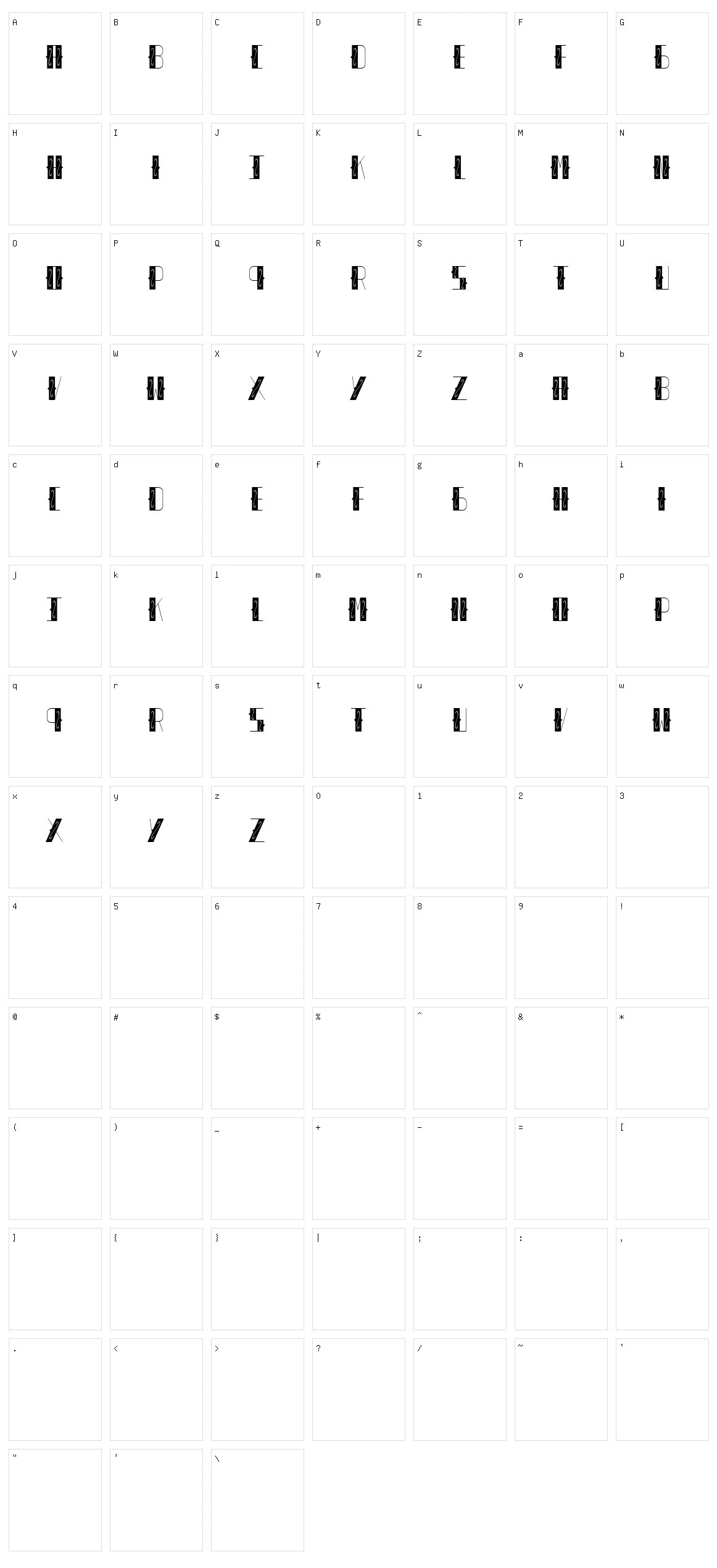
The free font Corral is carefully designed by Mar Man, showcasing a thoughtful balance of creativity and usability and falls under the Western font style. When you download the ZIP file, it contains only 7.67 KB of font files, making it lightweight and quick to download. Please review the license details below to understand permitted usage and distribution rights. If license information is not available, we recommend using this font for personal projects only or contacting the author directly for commercial usage permissions.